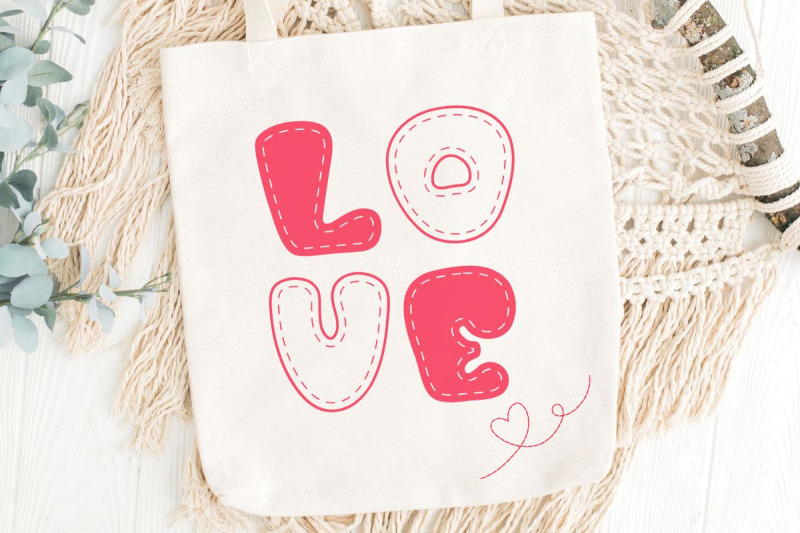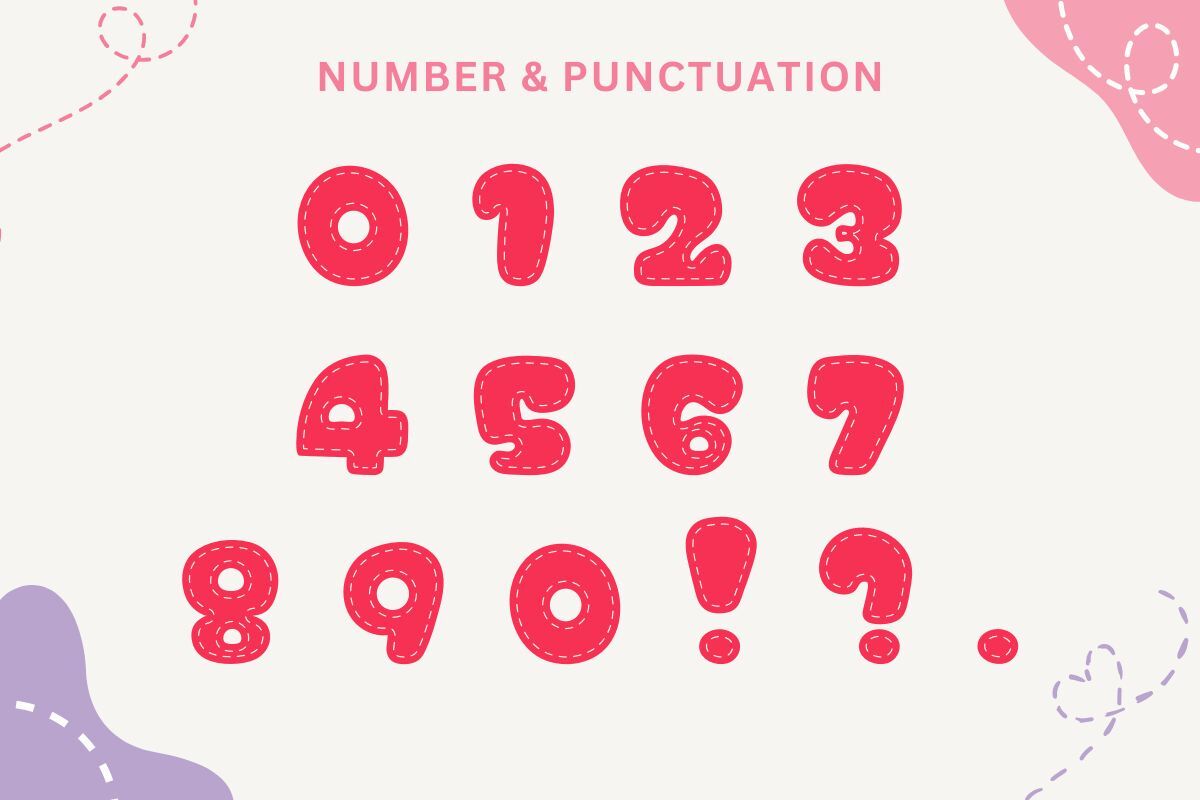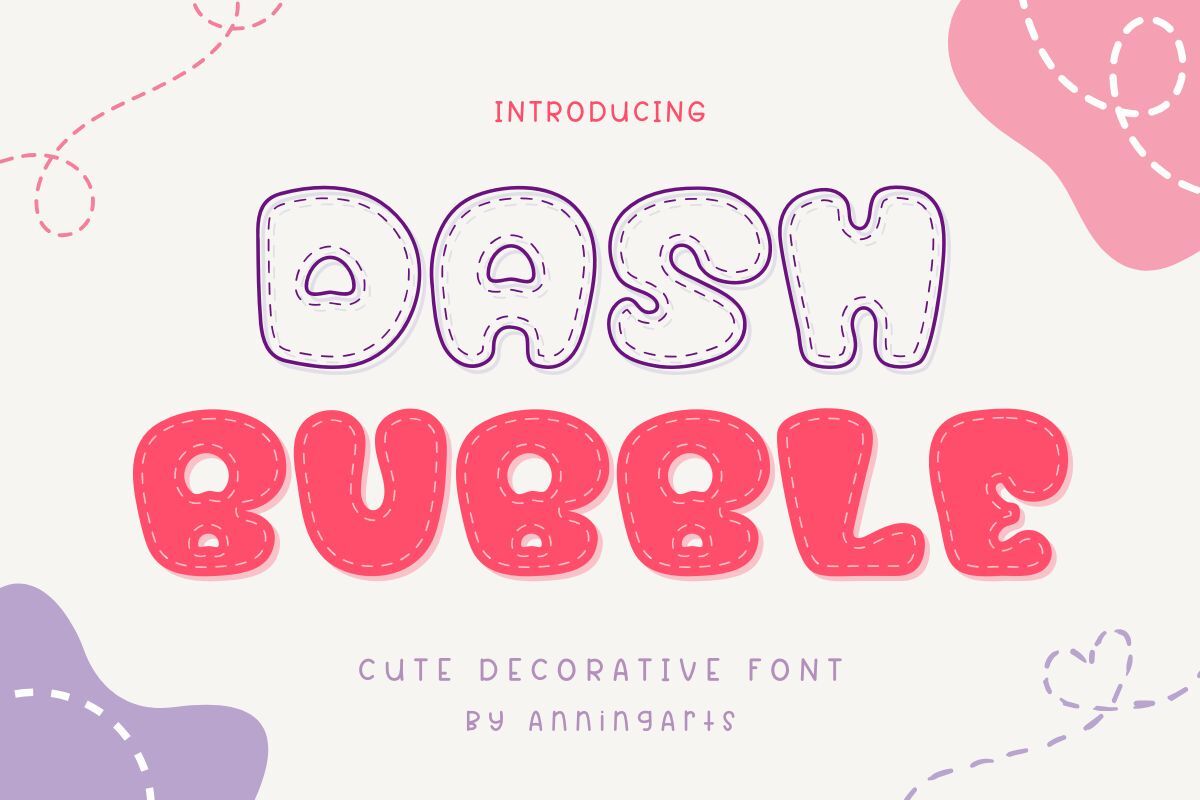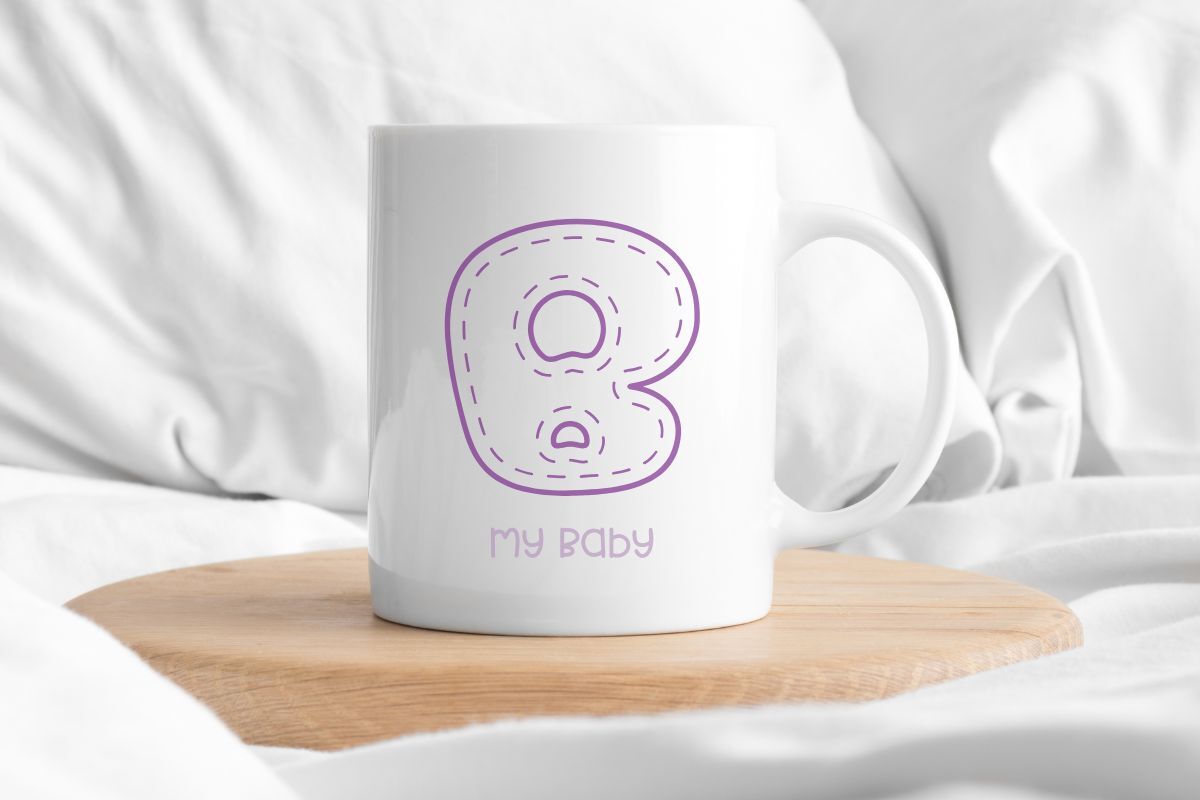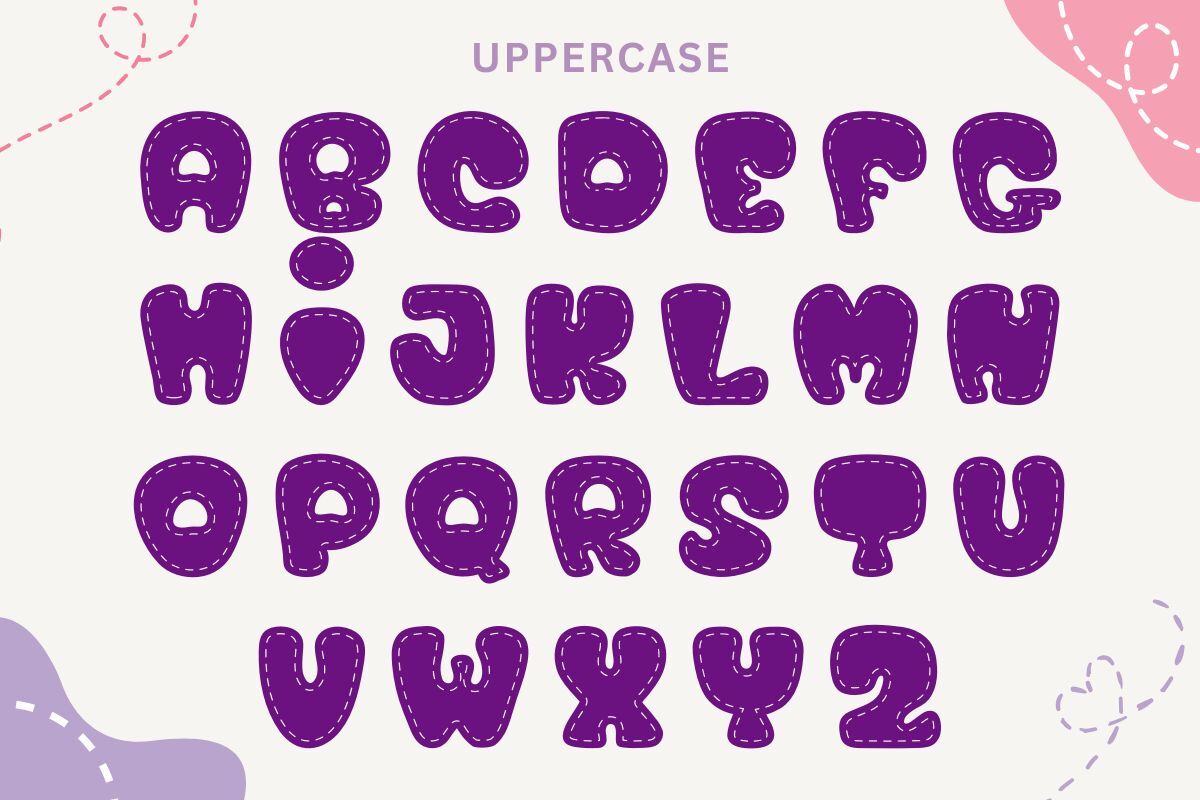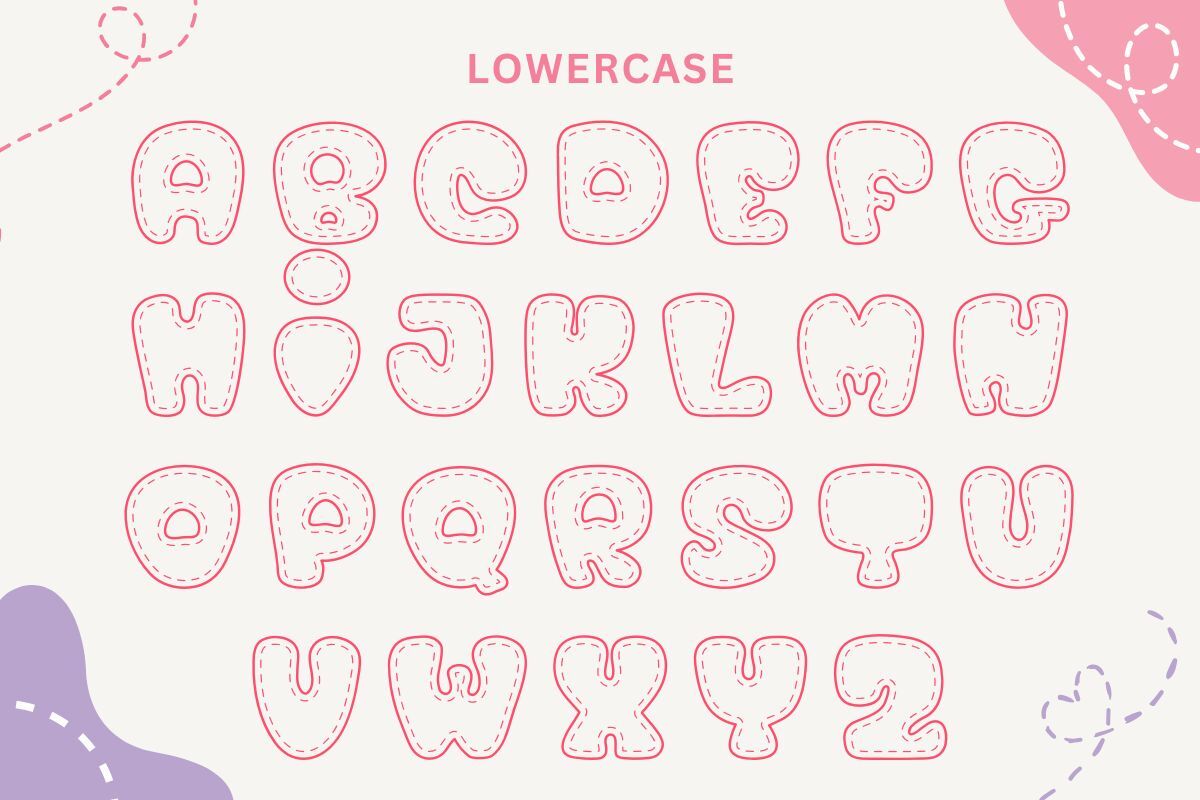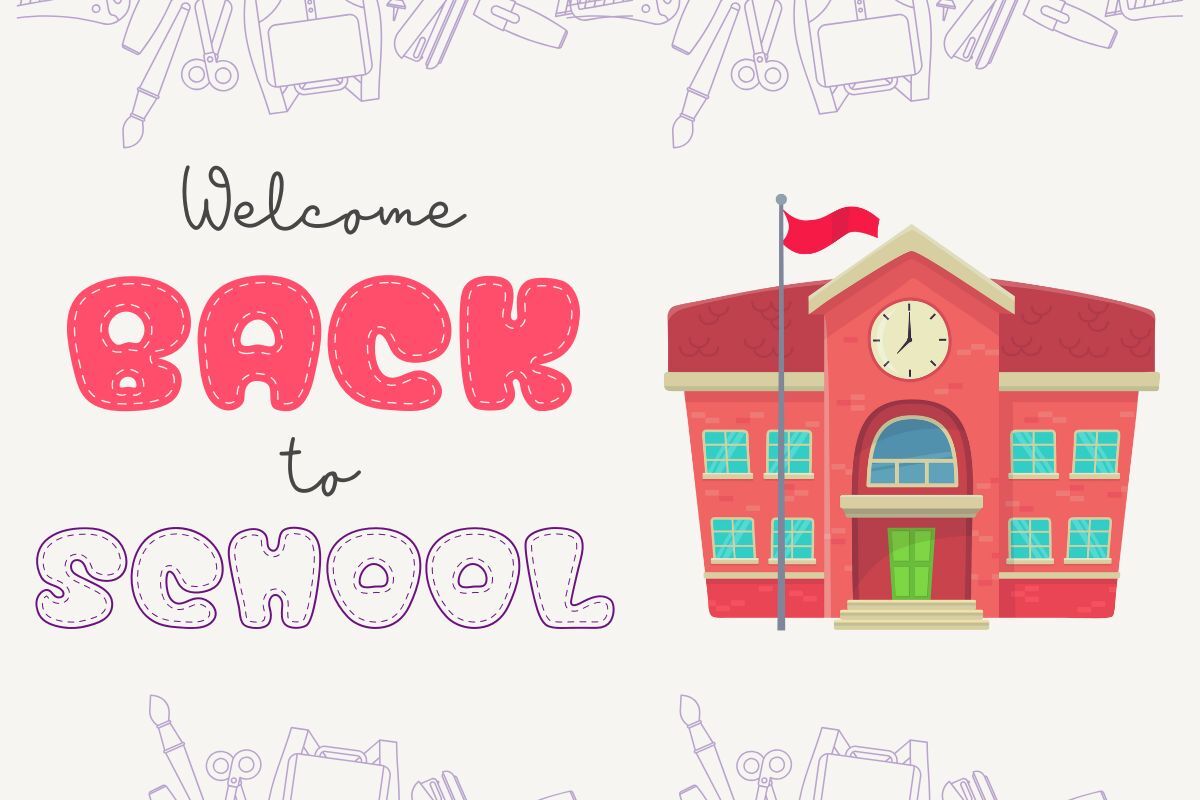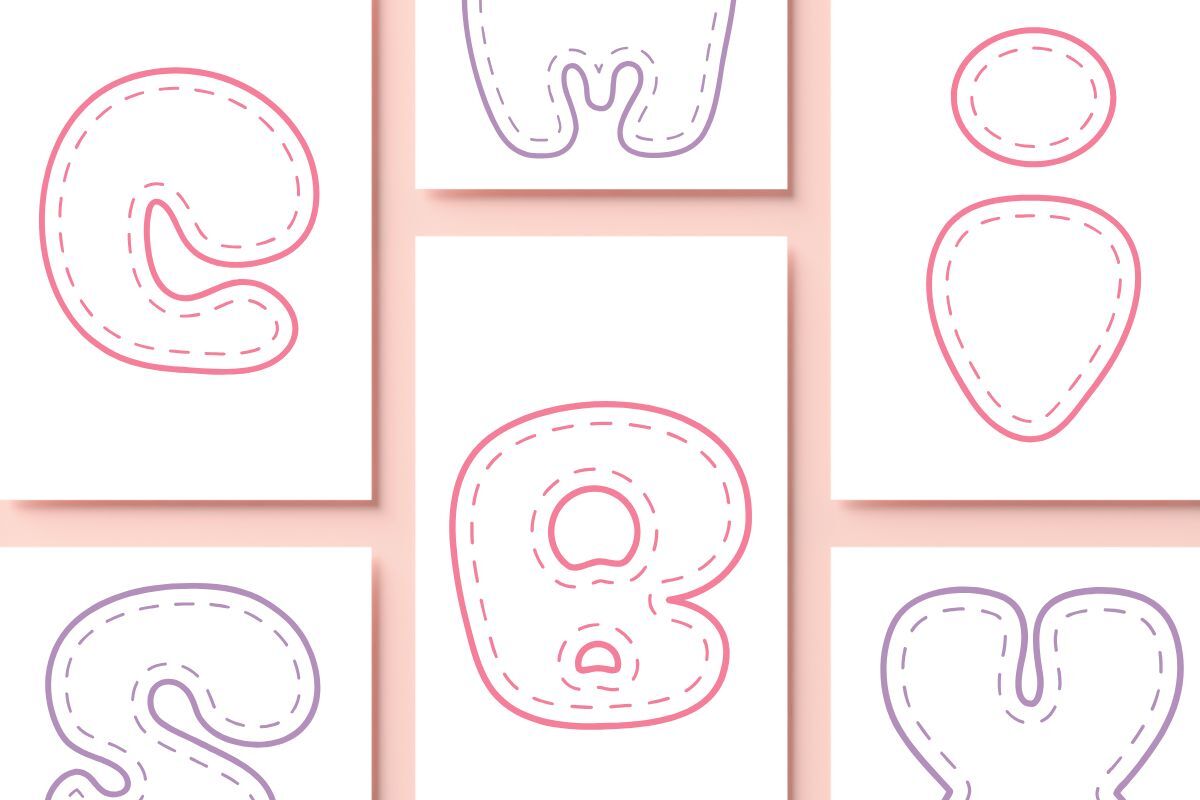
Dash Bubble - decorative Font
Dash Bubble is a fun and adorable decorative font with a unique stitched bubble letter style! This cute and playful font is perfect for kids projects, sewing-themed designs, scrapbooking, DIY crafts, greeting cards, invitations, and more.  This font is perfect for crafters, designers, teachers, and anyone who loves playful and creative typography! Whether you’re making cute children’s products, embroidery-themed designs, or fun printables, Dash Bubble Font will add a lovely handmade touch to your creations.